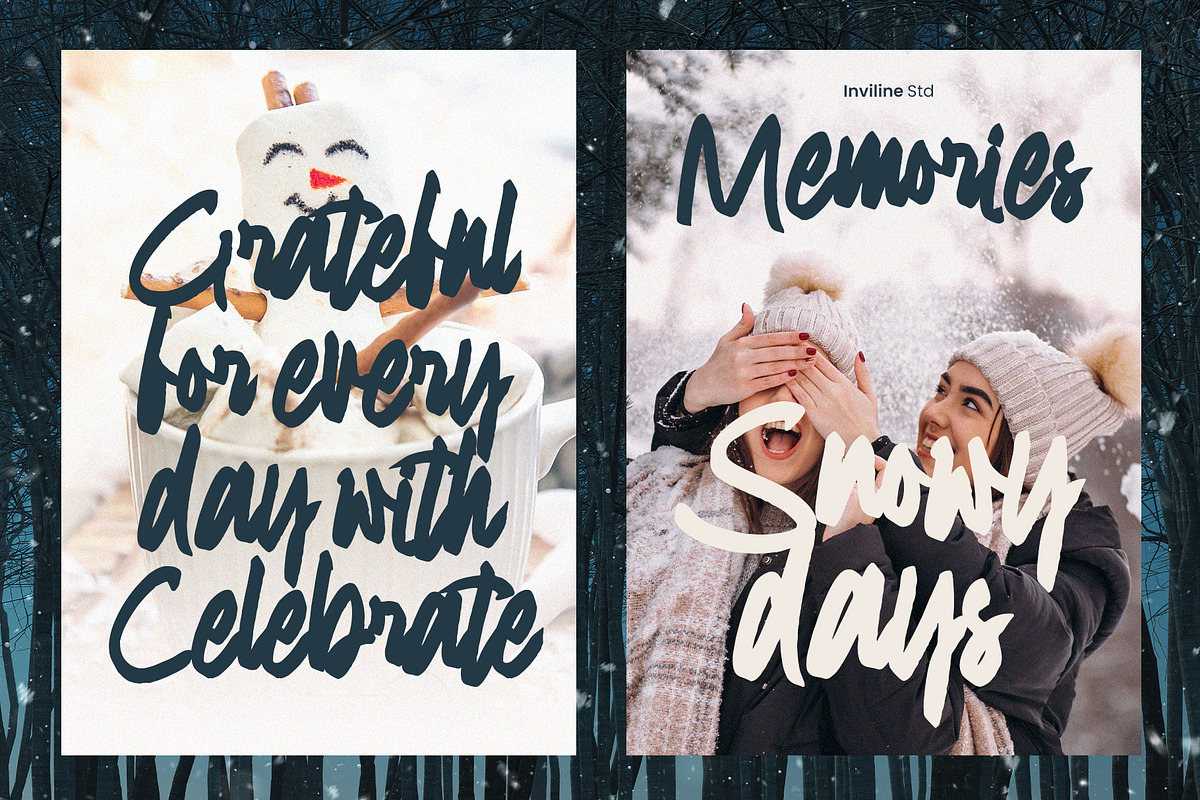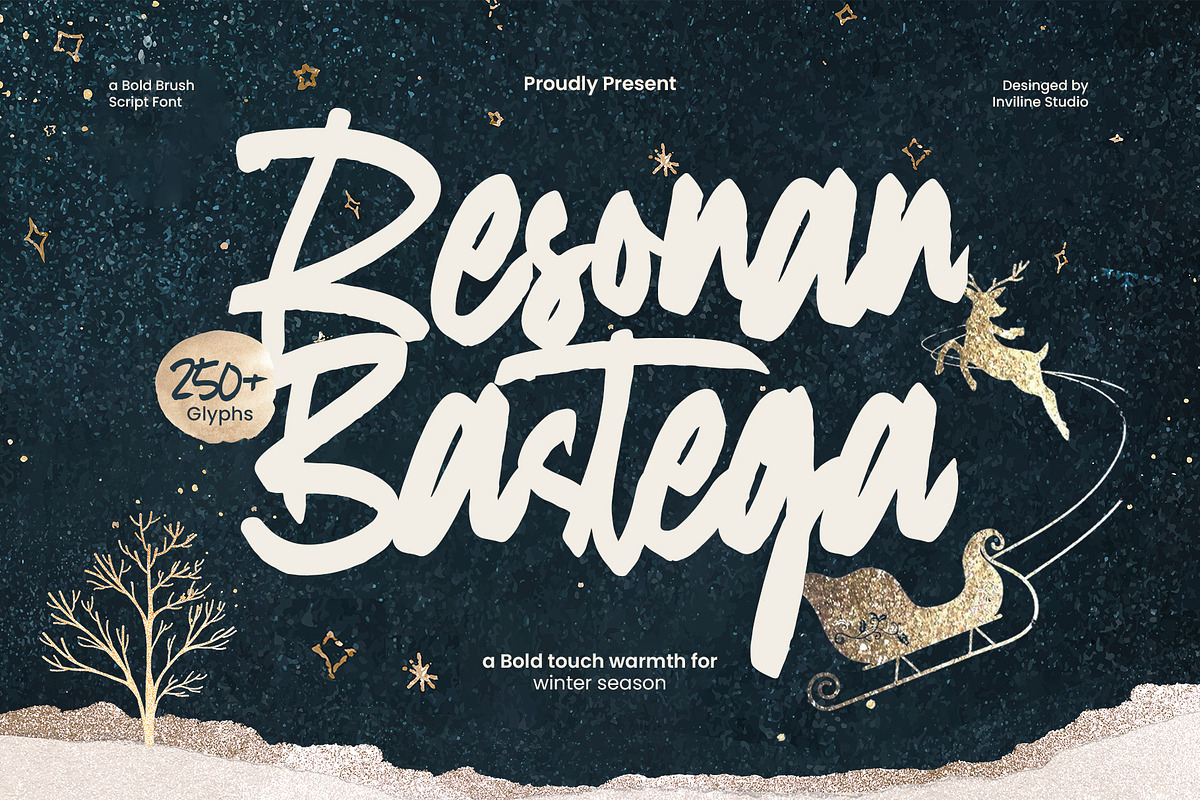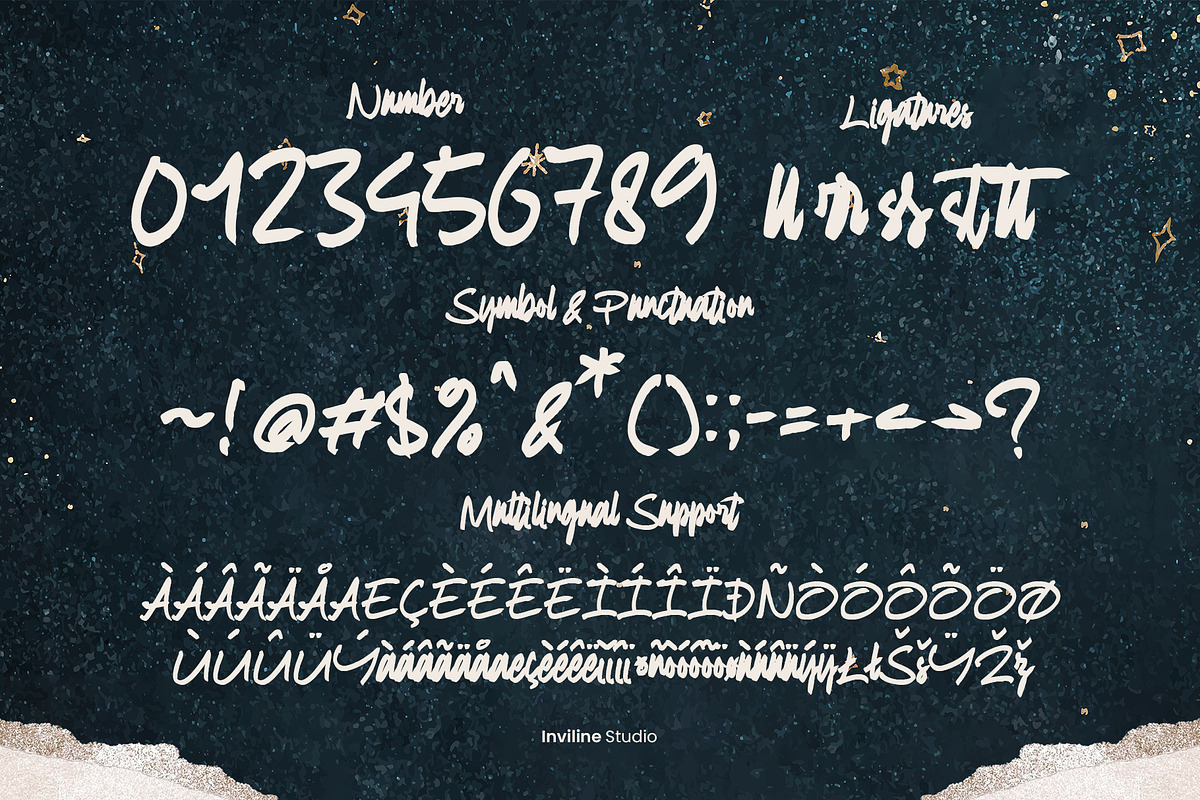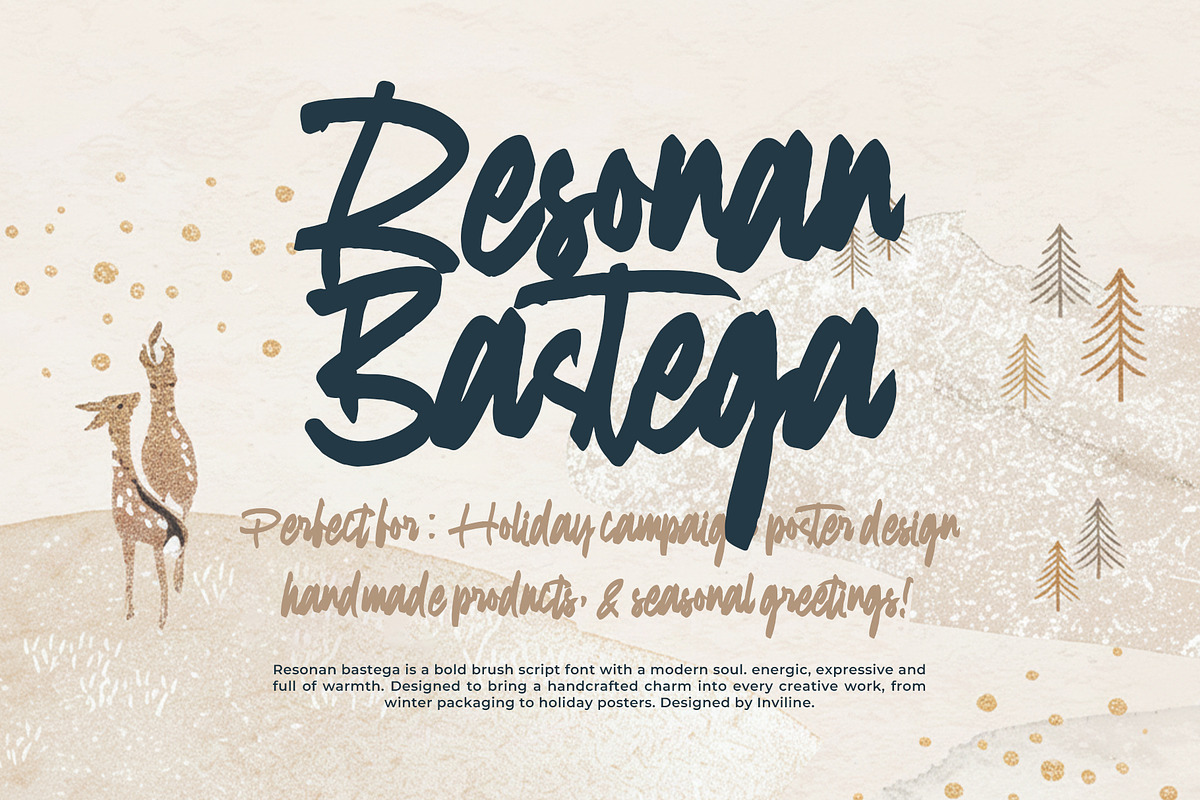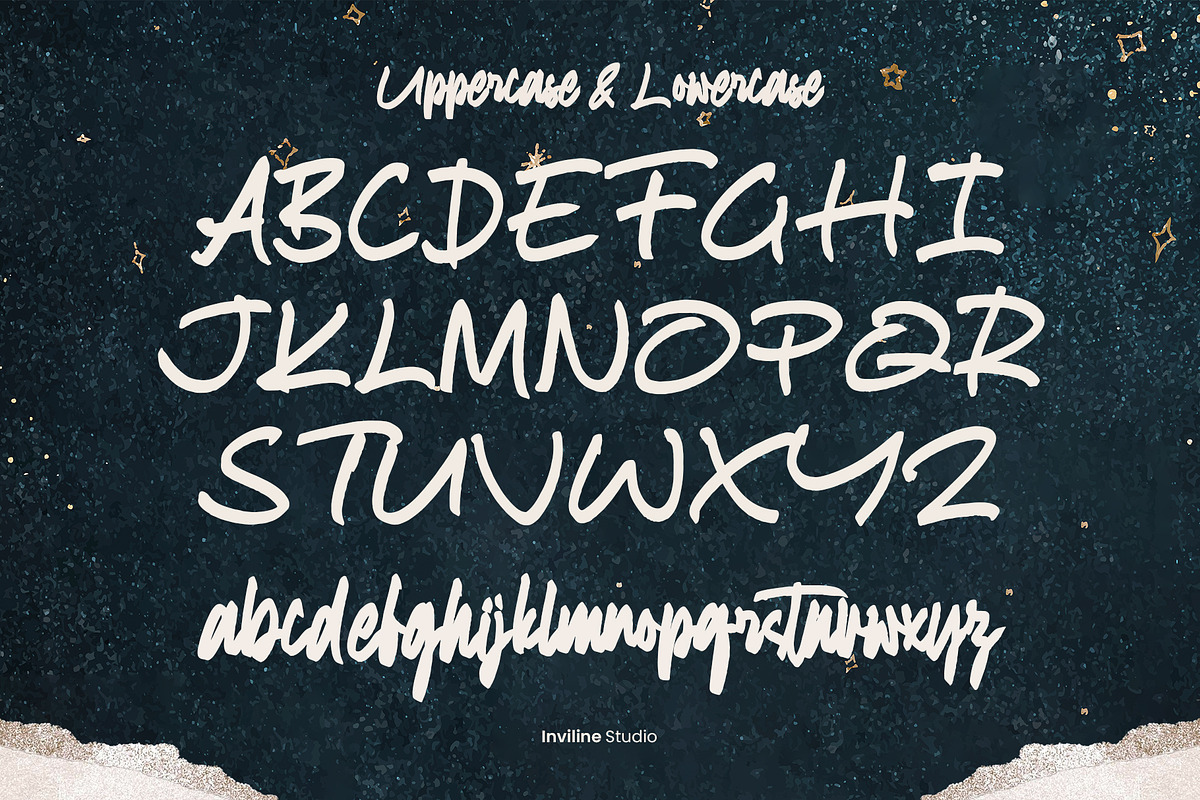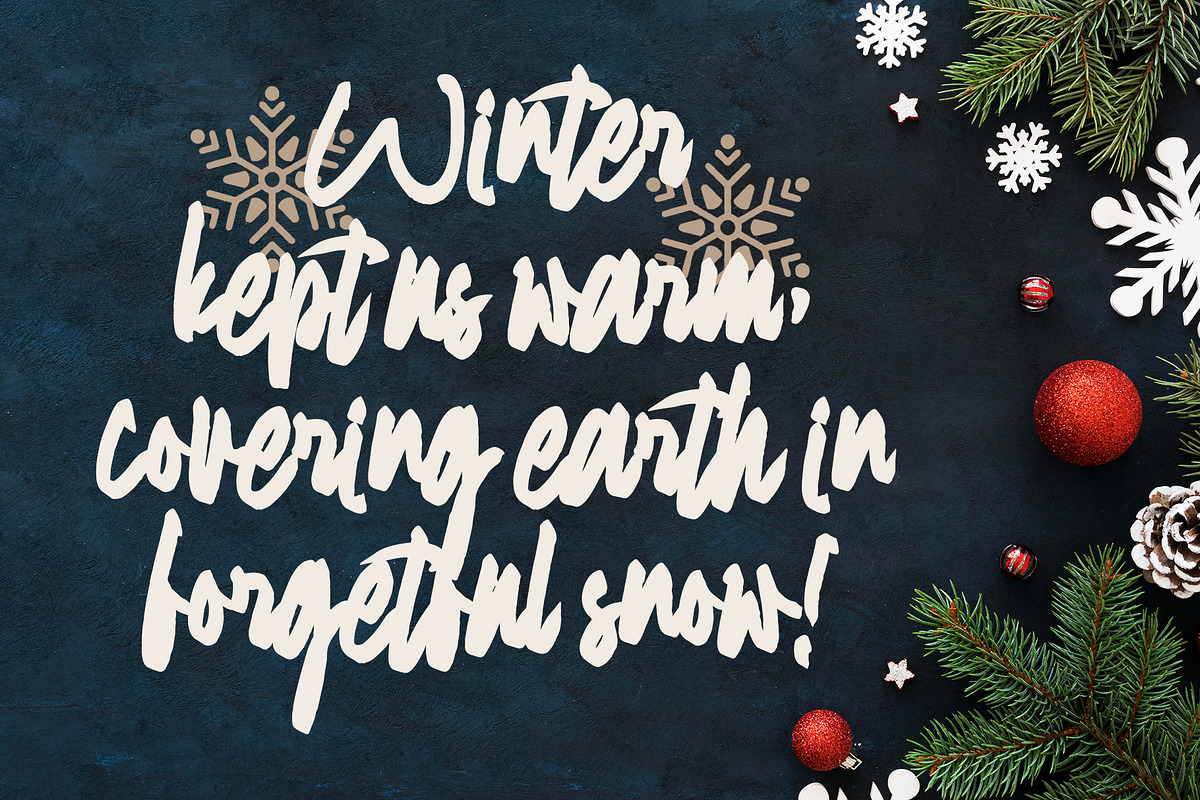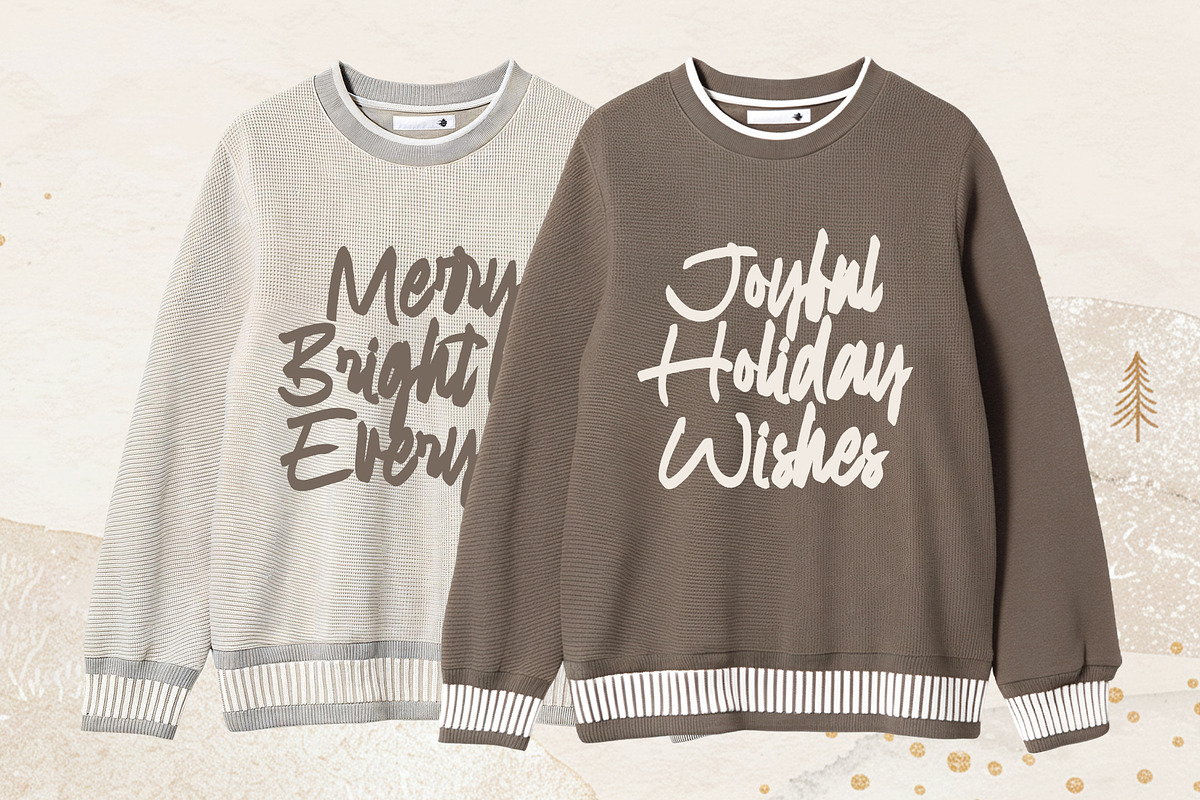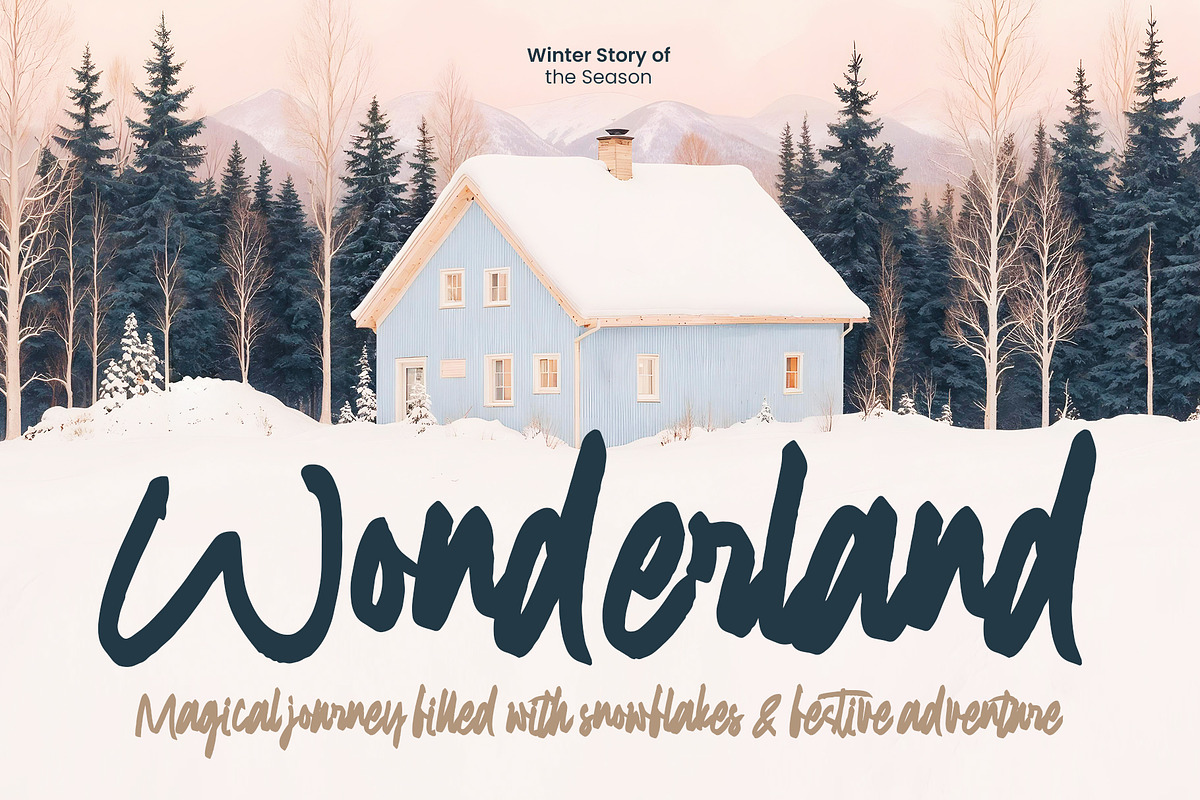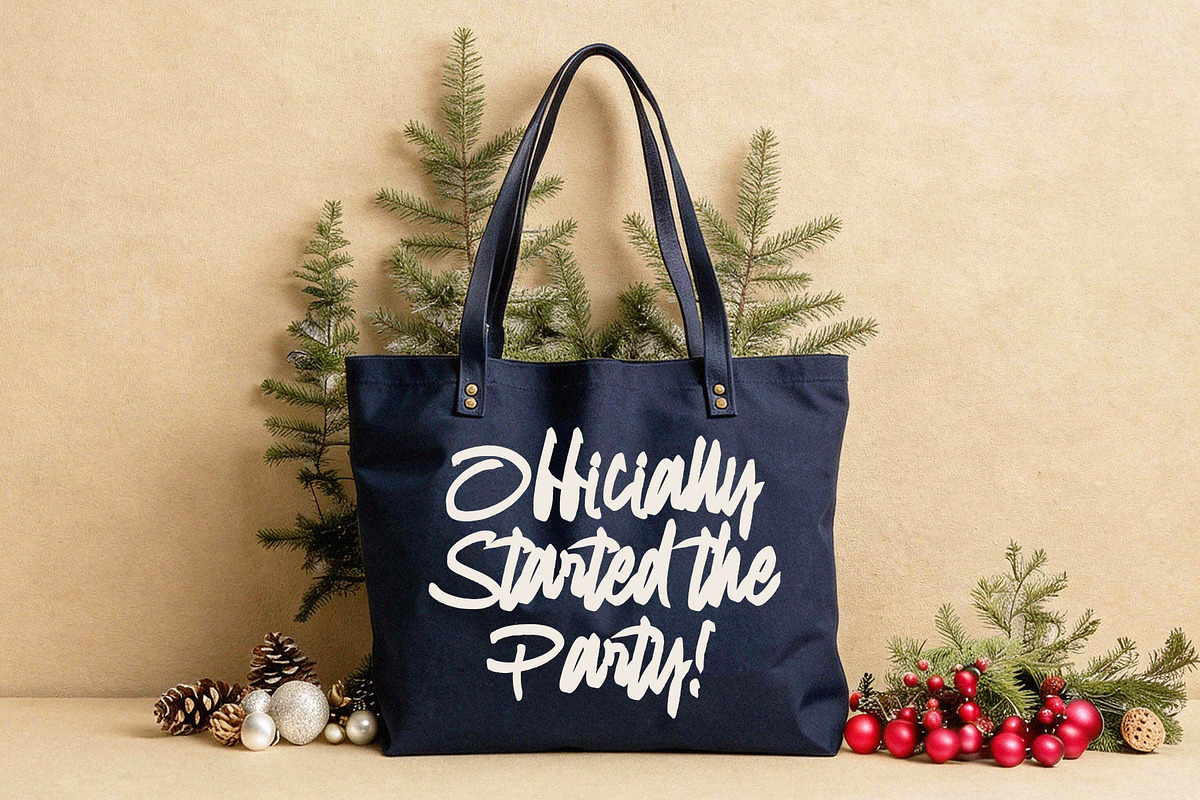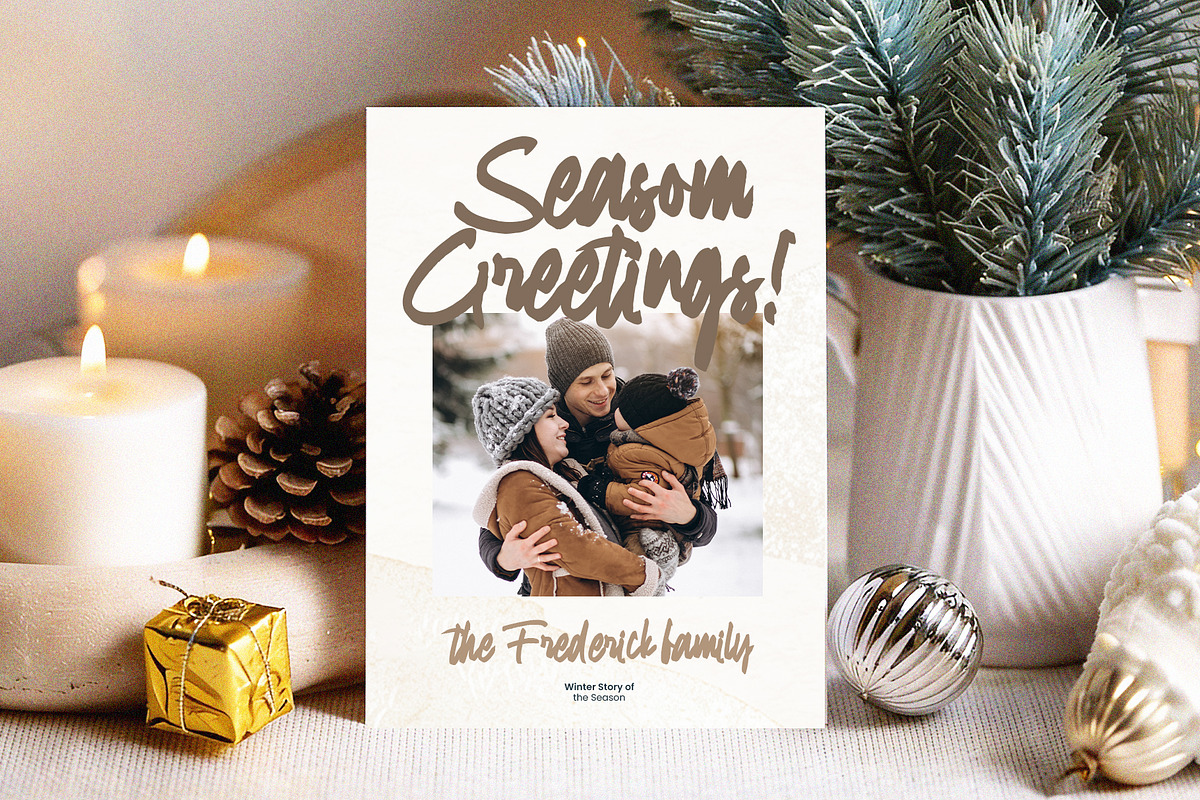
Resonan Bastega - Bold Brush Script
Resonan Bastega is a bold brush script typeface created with energetic strokes, expressive movement, and a warm handmade personality. Its thick letterforms, natural curves, and slightly irregular brush details give every word a confident and approachable appearance.
Inspired by winter campaigns, outdoor adventures, seasonal memories, and modern lifestyle graphics, Besonan Bastem is designed for projects that need strong typography with a personal handcrafted touch.
Overview
Resonan Bastega combines bold brush lettering with a smooth and readable display structure. Its expressive uppercase letters create powerful focal points, while the connected lowercase characters provide a natural handwritten rhythm.
The font works beautifully for large headlines, logos, posters, product names, seasonal messages, and short promotional phrases. Its confident forms can be paired with winter photography, textured backgrounds, outdoor illustrations, muted palettes, or bold contemporary color combinations.
Use Resonan Bastega as the primary display font, then pair it with a clean sans serif or condensed typeface for supporting information.
Resonan Bastega brush script font
Uppercase characters A–Z
Lowercase characters a–z
Numerals 0–9
Standard symbols and punctuation
Bold brush script design
Expressive and energetic handwritten strokes
Thick, confident letterforms
Natural handmade irregularities
Smooth uppercase and lowercase rhythm
Uppercase characters A–Z
Lowercase characters a–z
Complete numerals 0–9
Standard symbols and punctuation
Strong readability at medium and large sizes
Suitable for print and digital applications
Ideal for headlines, logos, names, and short phrases
Works well with winter, outdoor, lifestyle, and seasonal imagery
Suitable for outlines, shadows, textures, and layered effects
Easy to pair with clean sans serif or condensed typefaces
Ideal For / Use Cases
Winter branding
Seasonal campaigns
Outdoor lifestyle identities
Logo and wordmark design
Poster typography
Travel graphics
Adventure campaigns
Product packaging
Beverage labels
Café and restaurant branding
YouTube thumbnails
Promotional banners
Editorial headlines
Magazine covers
Book covers
Photography overlays
Quote designs
Greeting cards
Event posters
Sticker designs
Merchandise graphics
Sports branding
Youth campaigns
Contemporary visual identities
Use the font at medium or large sizes to preserve its bold brush details and expressive movement. It works best for logos, headlines, posters, product names, quotes, and short promotional phrases rather than long paragraphs.
Pair Resonan Bastega with a clean sans serif font for captions, dates, descriptions, and supporting information. Adjust the tracking and line spacing when creating multi-line layouts, and leave enough space around extended brush strokes.